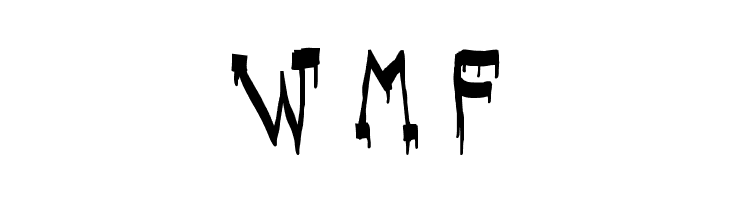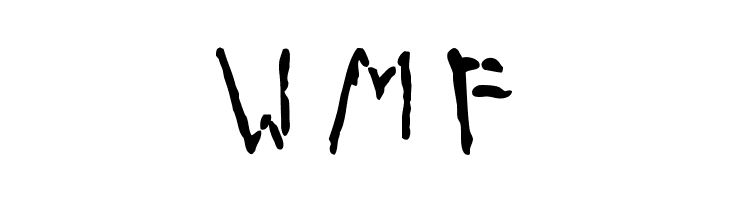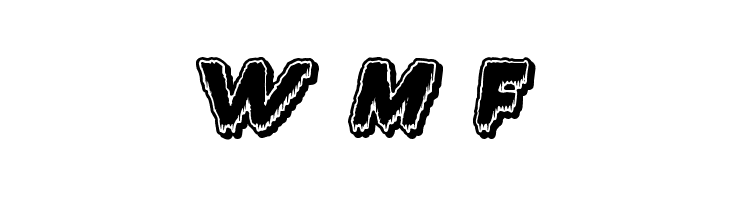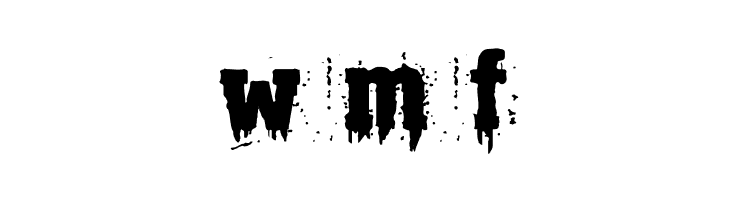
A bold, dripping decorative font with a rebellious and edgy style.
A bold, dripping font with a spooky, wax-like appearance.
A spooky, dripping font perfect for Halloween-themed designs.
A bold, decorative font with a dripping effect, ideal for creative projects.
A spooky, Halloween-themed font with dripping, cobwebbed characters.
A bold, dripping font with a spooky, fluid design.
A bold, graffiti-inspired font with sharp angles and a dripping effect.
A bold, jagged font with a dripping effect, perfect for dramatic and intense designs.
A bold, dripping font with a horror or grunge aesthetic.
A bold, dripping font with an organic, fluid style.
A bold, dripping effect font with a unique, edgy style.
A dramatic, edgy font with a dripping, chaotic style.
A playful, dripping font with a spooky, liquid-like appearance.
A bold, playful font with jagged, dripping edges for a spooky effect.
A bold, dripping font perfect for horror themes.
A playful, spooky font with a dripping, gooey texture perfect for Halloween themes.
A bold, dripping font ideal for horror-themed designs.
A horror-themed, dripping font with bold, jagged characters.
A horror-themed, dripping font perfect for spooky designs.
A horror-themed font with jagged, dripping letterforms for a chilling effect.
A dripping, eerie font perfect for horror themes.
A bold, dripping font ideal for horror or thriller themes.
A bold, dripping font with a spooky, horror-themed design.
A bold, dripping font with a grungy, distressed style.
A dripping, eerie font perfect for horror-themed designs.
A bold, dripping font with a playful and eerie style.
A bold, horror-themed font with a dripping effect.
A bold, dripping font with a gothic and theatrical style.
A bold, dripping font with a dramatic and intense appearance.
A bold, dripping font with a grungy, horror-inspired aesthetic.
A bold, distressed font with a grunge, dripping effect.
A bold, dripping font perfect for spooky Halloween designs.
A bold, grungy font with a dripping, horror-inspired aesthetic.
A dark, edgy font with jagged edges and a dripping brushstroke style.